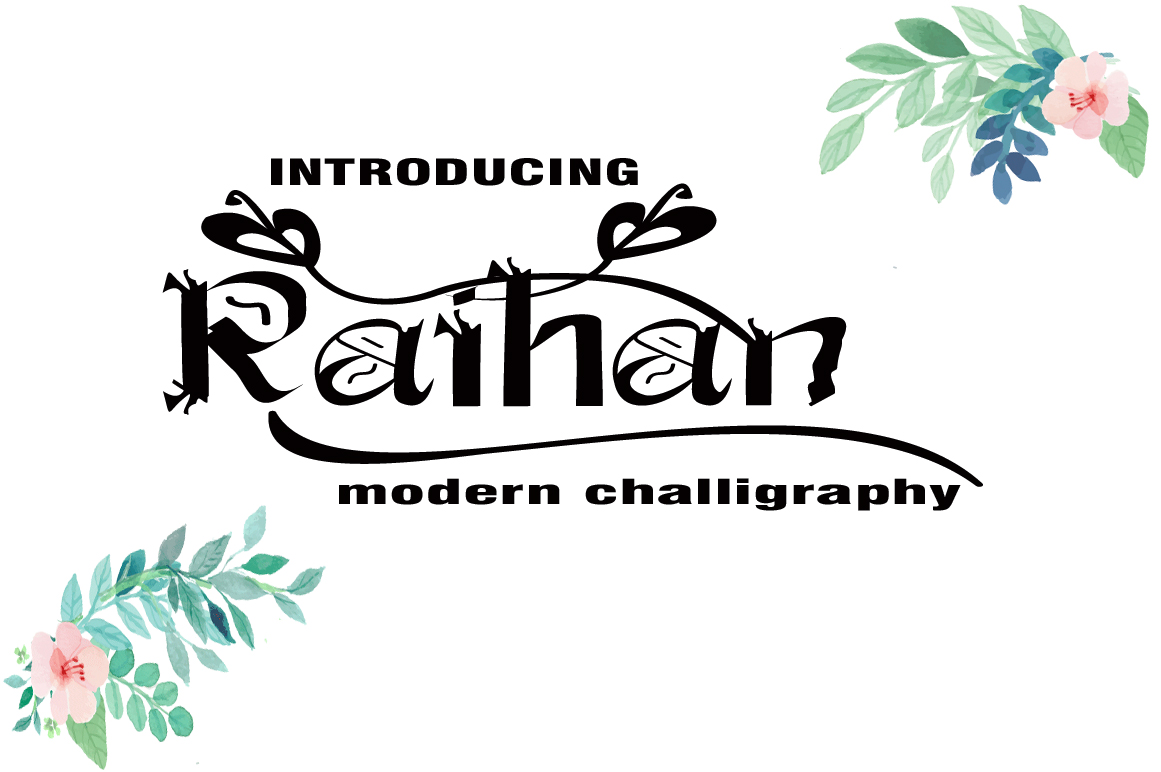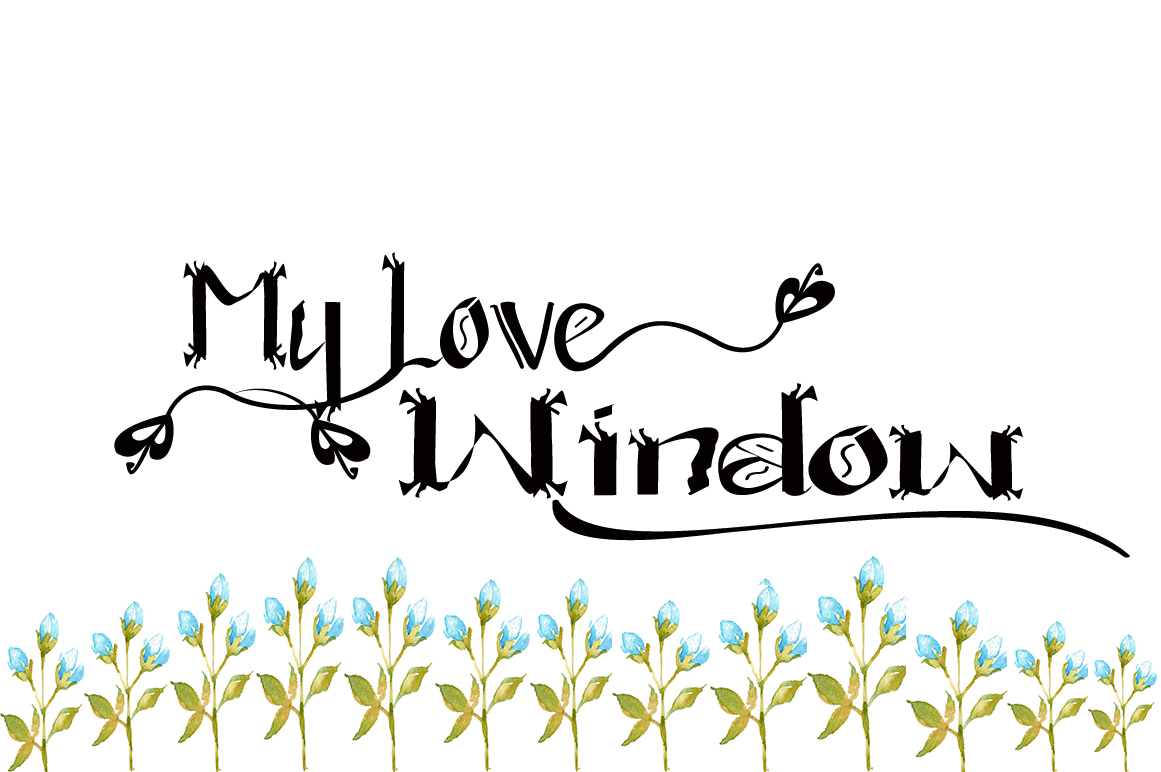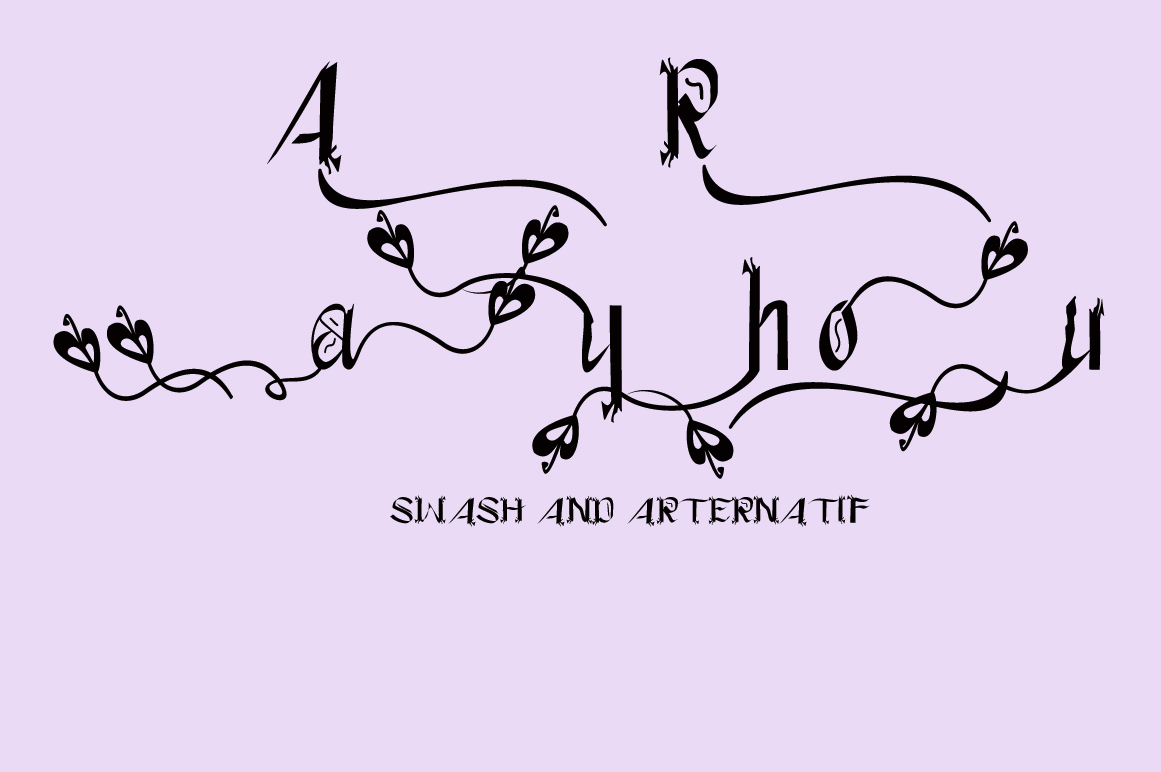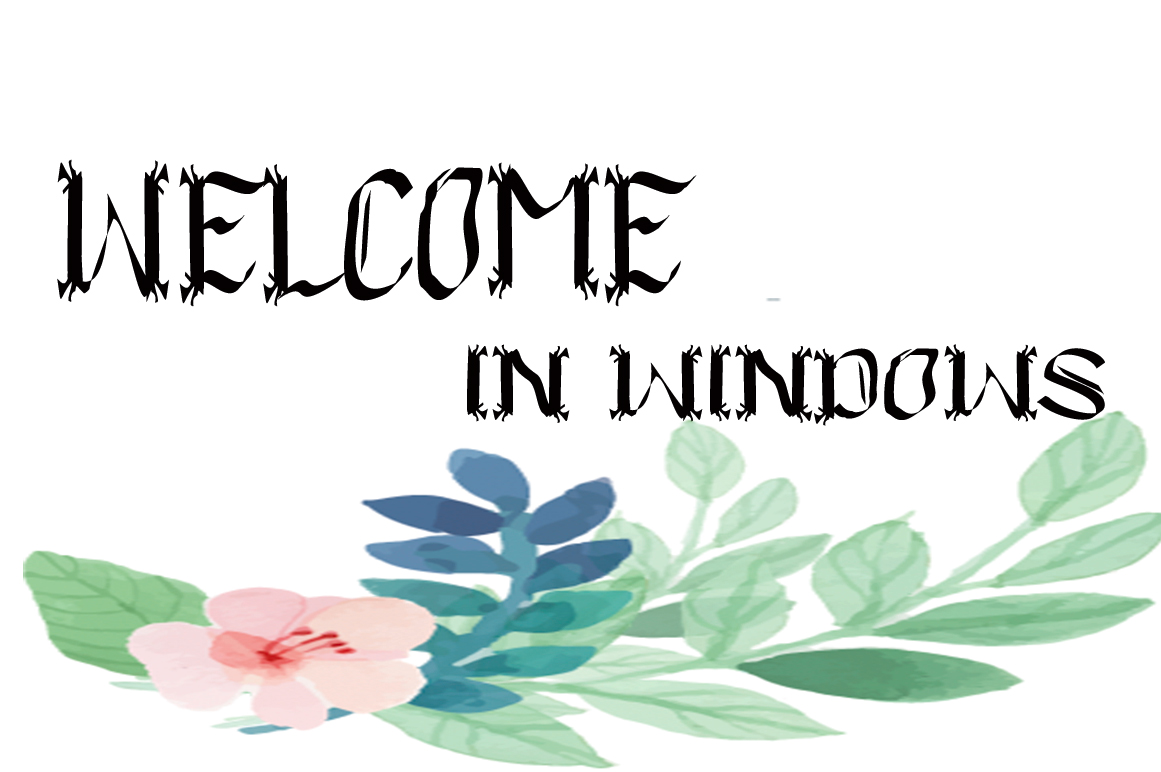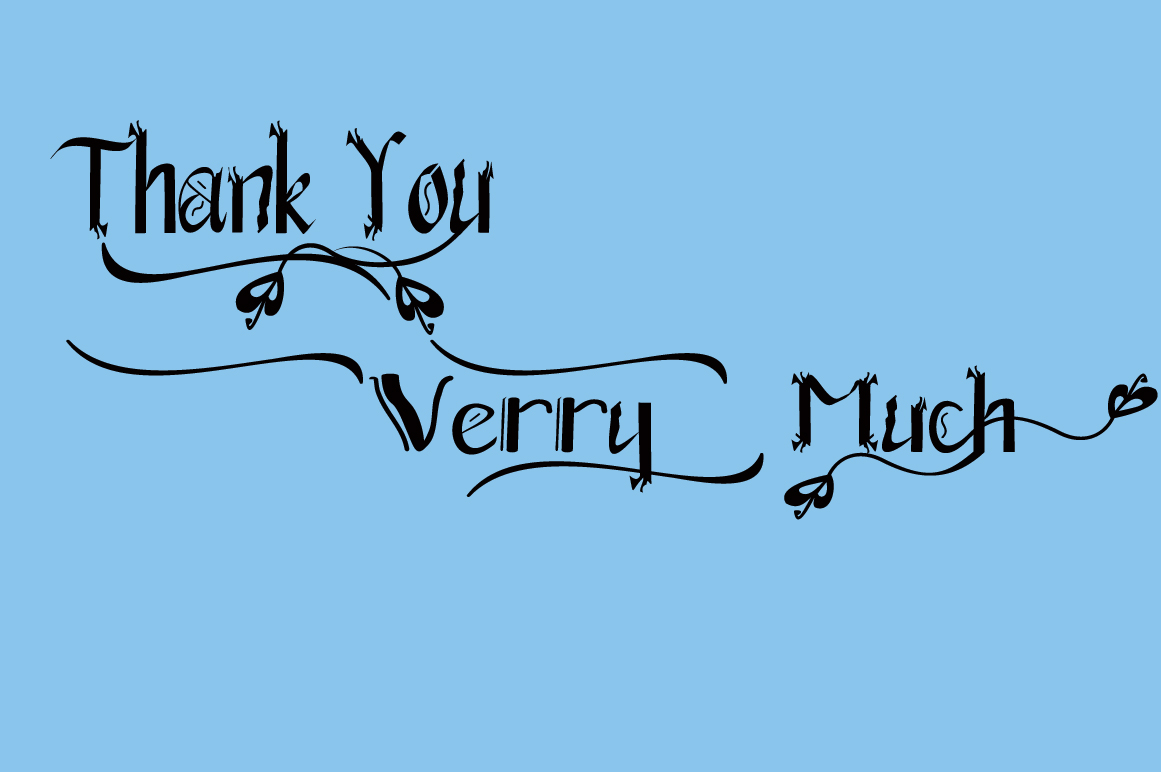
HomeScript FontsRaihan Font Script Fonts Raihan Font FacebookXPinterestWhatsApp Raihan Font Poster 2 Raihan Font Poster 3 Raihan Font Poster 4 Raihan Font Poster 5 About Raihan Font Raihan is a modern calligraphy Script font created by hand. DOWNLOAD NOW People also explored Nakytta Font Greatest Moments Font CN Sans Font Hello Crush Font Hellsici Font The Kitchen Font Benvollin Font Cherlesya Script Font Mostlovely Font 261 0 TagsRaihan Font Previous articleBraiden FontNext articleSketsa Leo Font LEAVE A REPLY Cancel reply Comment: Please enter your comment! Name:* Please enter your name here Email:* You have entered an incorrect email address! Please enter your email address here Website: Save my name, email, and website in this browser for the next time I comment. Personal Use Free Klotee Personal Use Free Read more about this font Happy Garden Personal Use Free Read more about this font Vincent Familiante Personal Use Free Read more about this font Black Friday Personal Use Free Read more about this font BLOG The 10 Best Handwriting Fonts to Add Personality to Your Designs 10 of the Best Handwriting Fonts for Adding Personality to Your Designs There will undoubtedly be no other better choice than handwriting fonts to give... 5 Fonts That Will Dominate Design Trends in 2026 To increase your work productivity, choose the most readable fonts. Free vs Paid Fonts: Why Investing in Premium Fonts Is Worth It